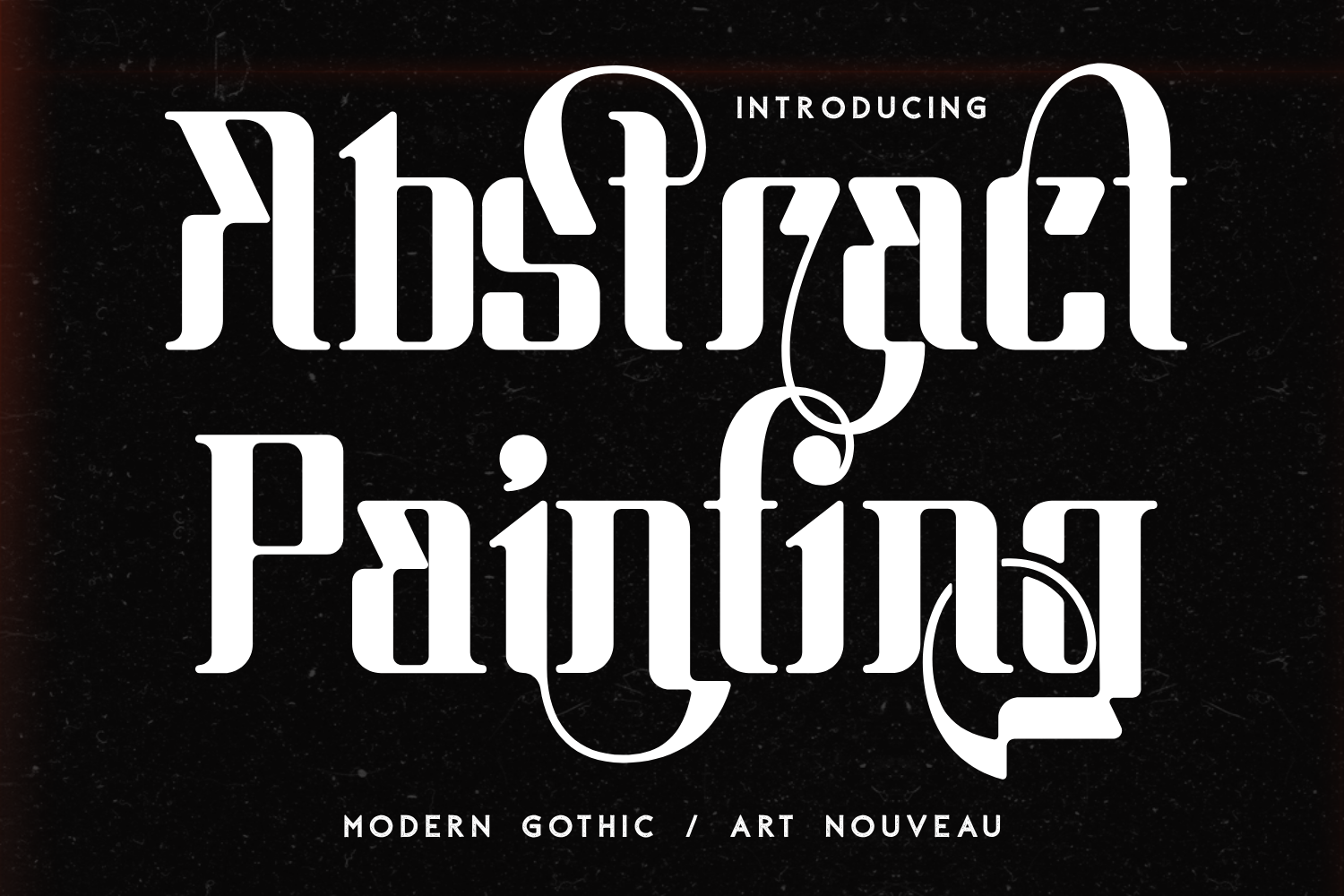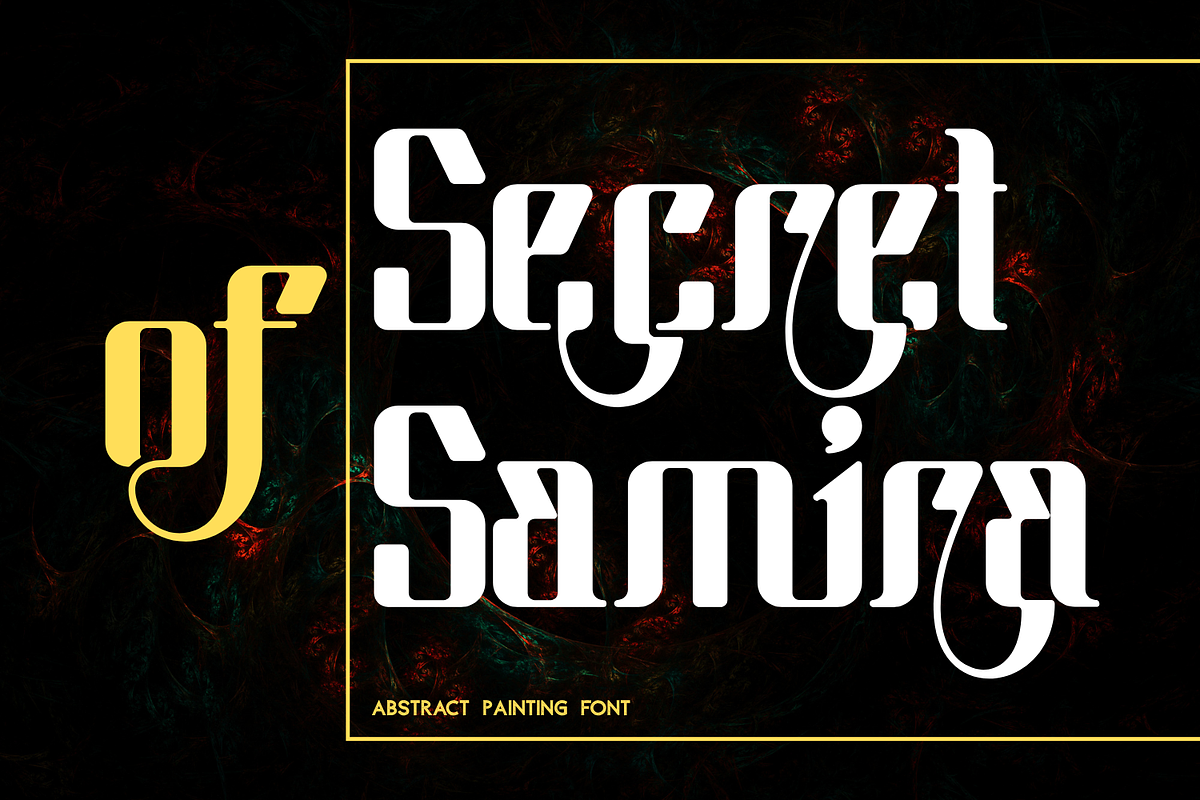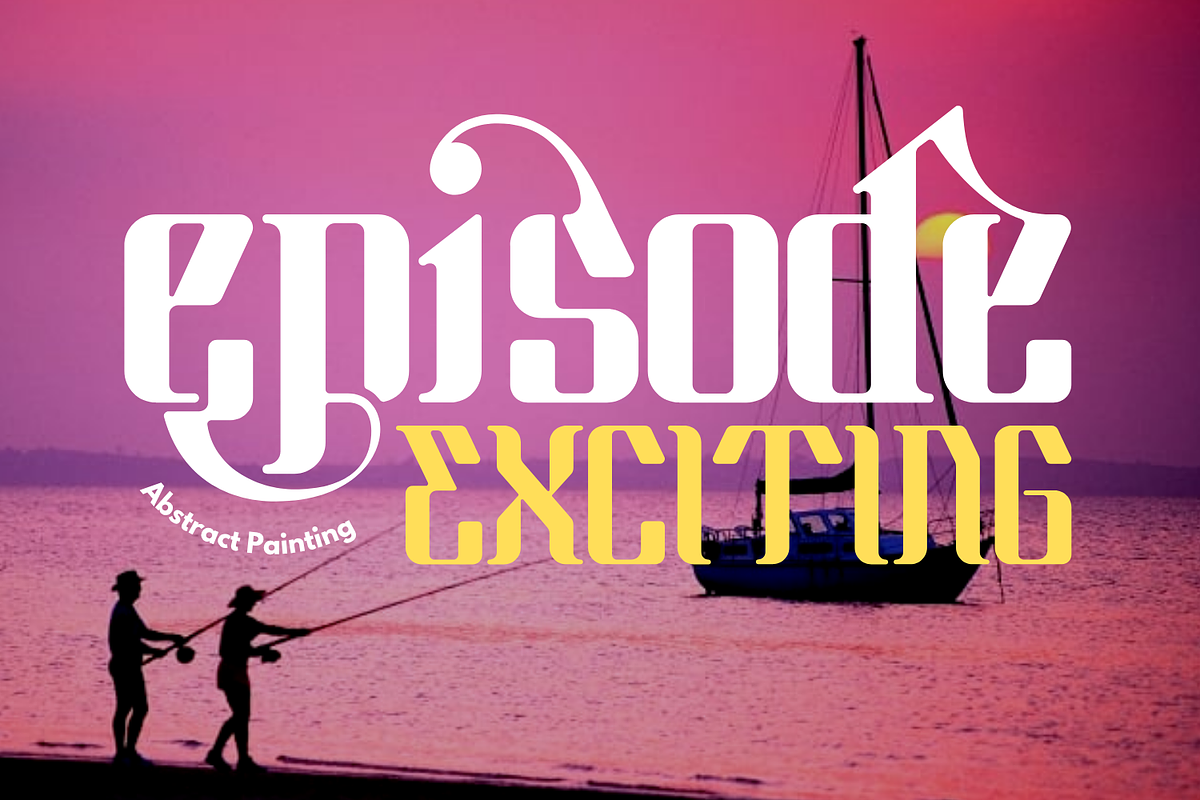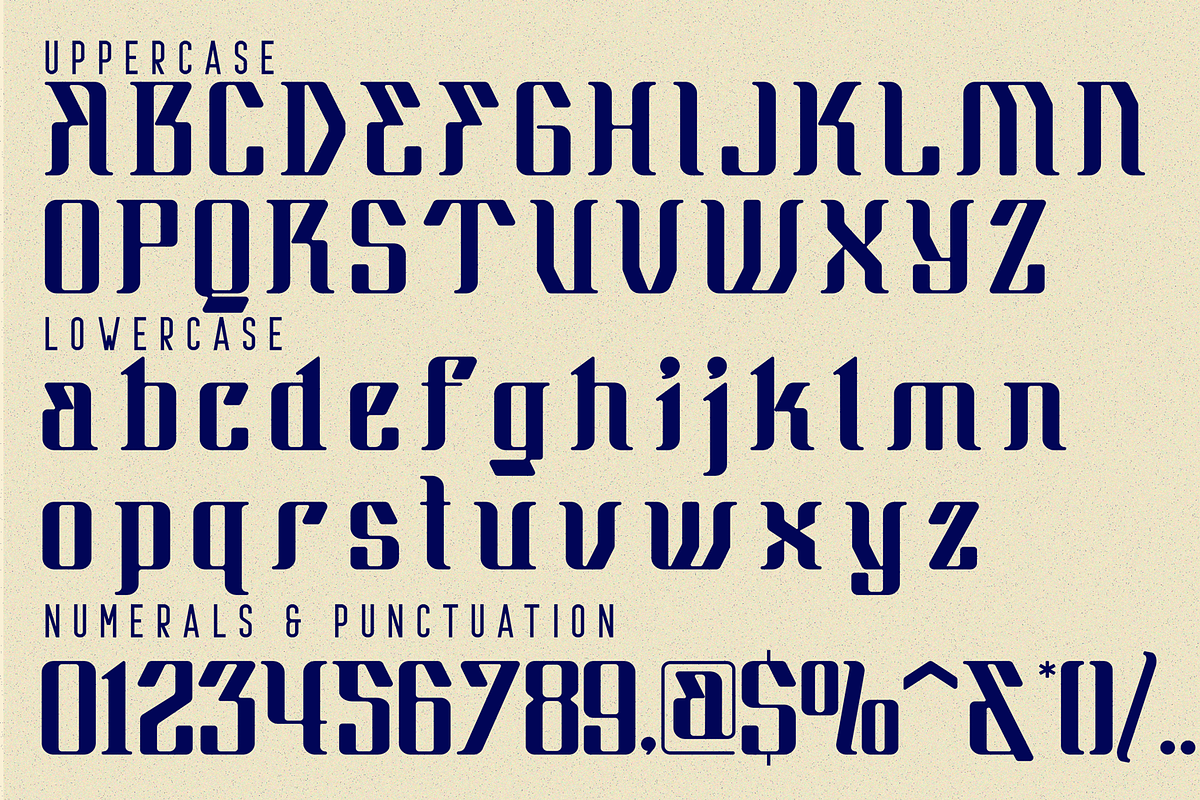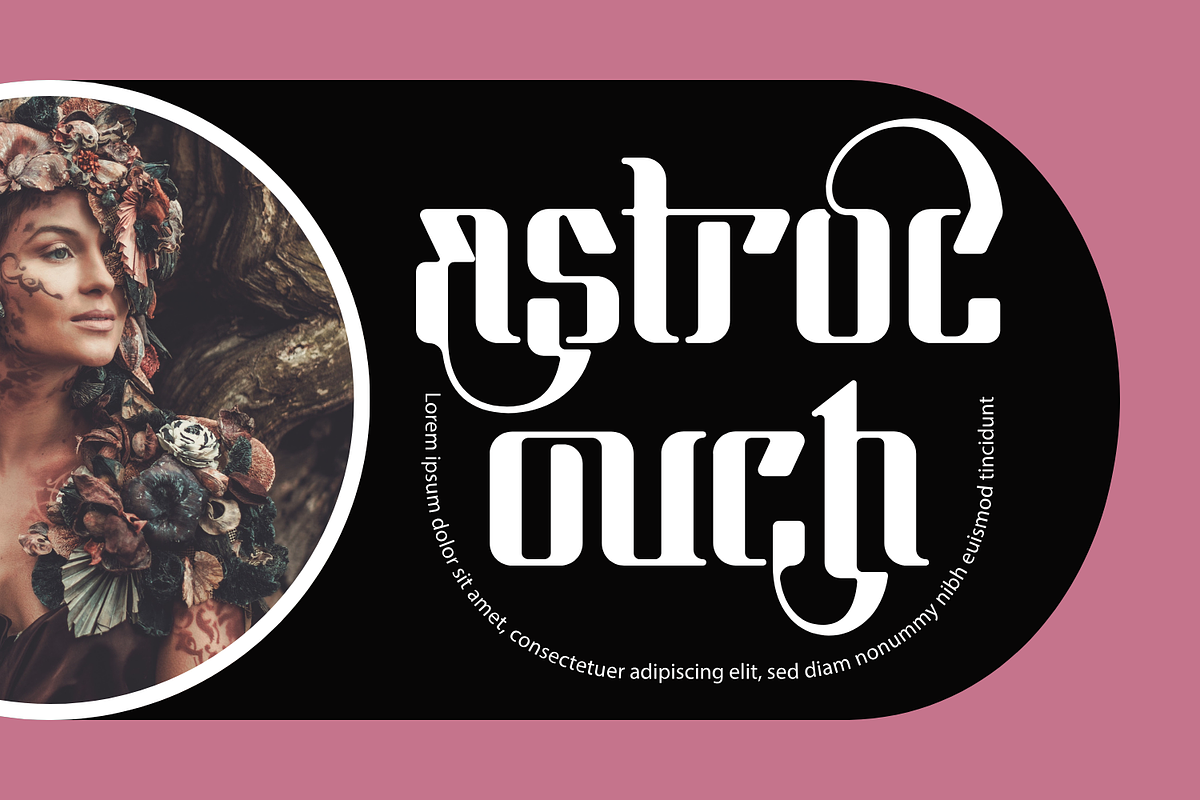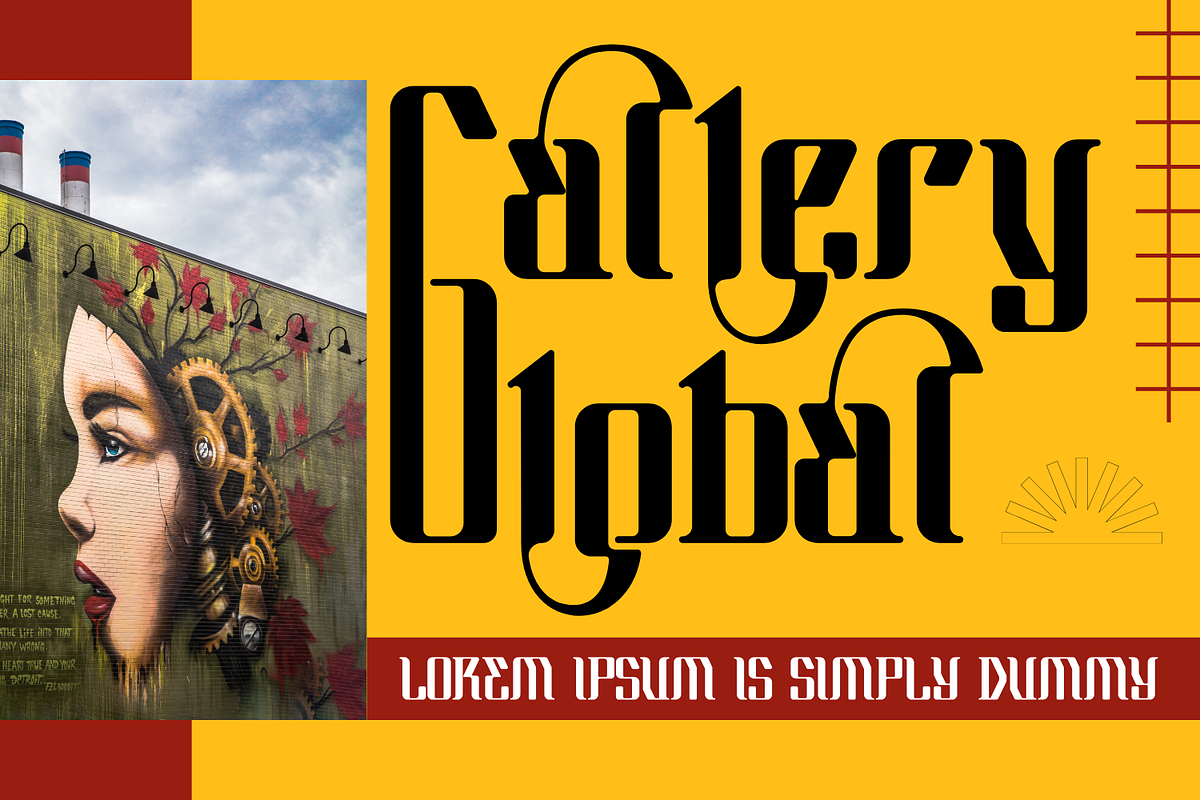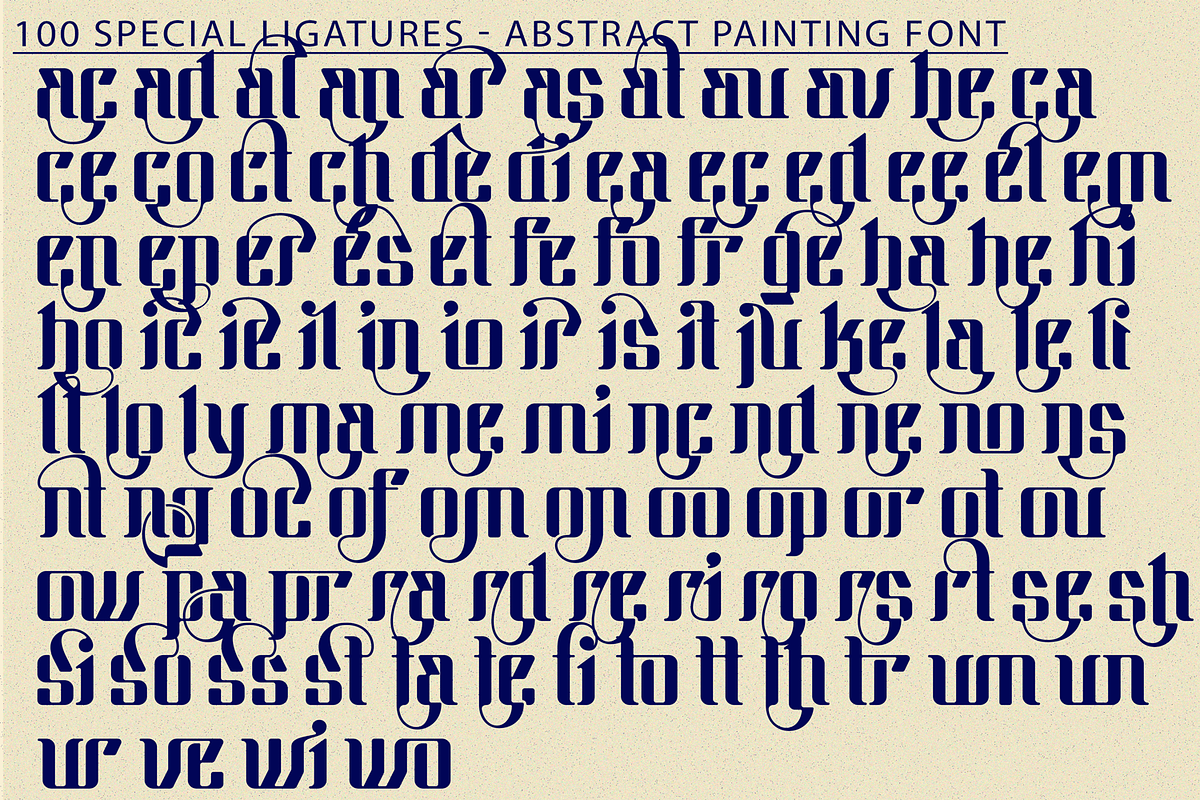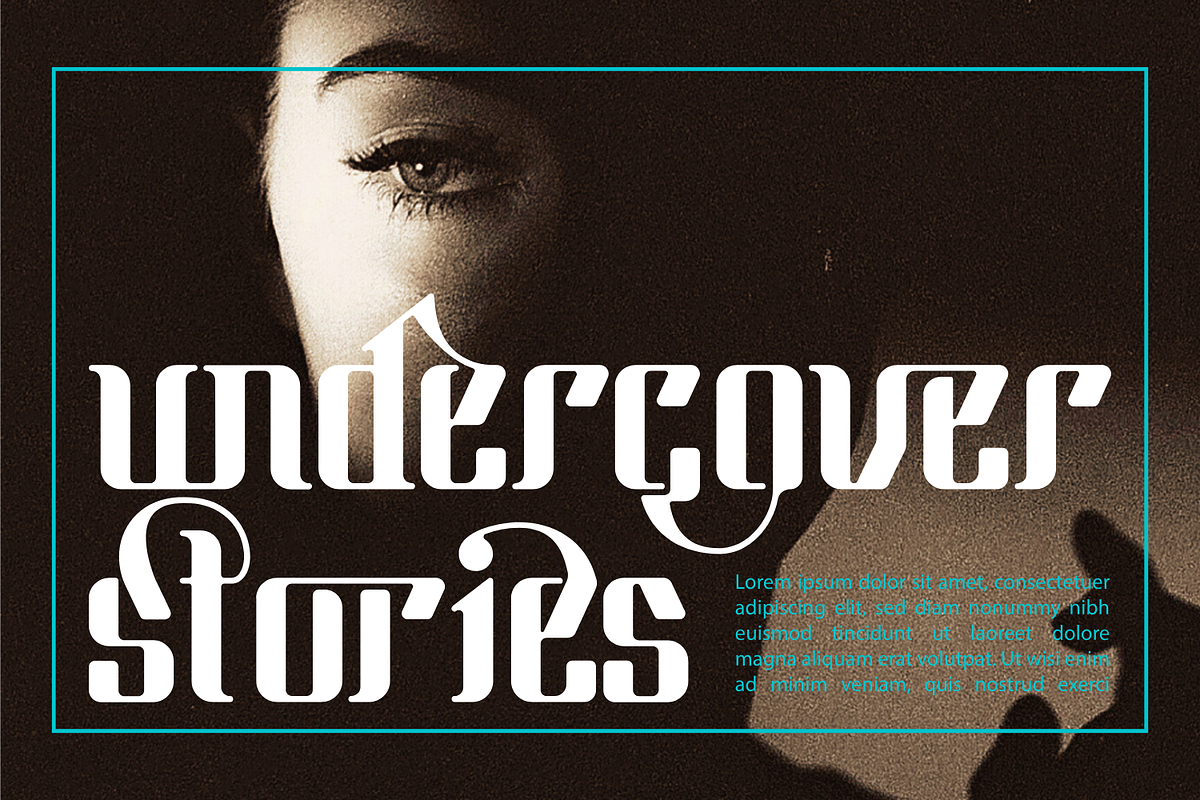
Abstract Painting Font
Abstract Painting Font – Modern Blackletter Display Typeface, is a bold and imaginative display typeface that fuses the ornamental structure of traditional blackletter with contemporary geometric aesthetics. Designed with high contrast, sharp angular shapes, and whimsical curvilinear flourishes, this font evokes both historical reverence and modern rebellion. The unique blend of Gothic elegance and abstract artistry makes Abstract Painting ideal for standout branding, album covers, editorial titles, fashion campaigns, and art projects that crave a typographic identity with character and depth.
- Uppercase and Lowercase Letters
- 100+ Abstract Ligatures and Swashes
- Accented Characters for Multilingual Support
- Distinctive High-Contrast Forms
- Gothic-Inspired but Visually Contemporary
- Great for Posters, Branding, Tattoo Designs, Covers, and Experimental Layouts
About 100 ligatures combined with Stylistic Alternates Font:
ac ad al an ar as at au av be ca ce ch co ct de di ea ec ed ee el em en ep er es et fe fo fr ge ha he hi ho ie ic il in io ir is it ju ke la le li ll lo ly ma me mi nc nd ne ng no nt ns oc of om on oo op or ot ou ow pa pr ra rd re ri ro rs rt se sh si so ss st ta te th ti to tr tt um un ur ve wi wo